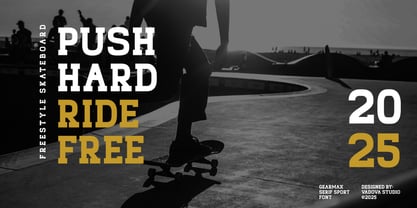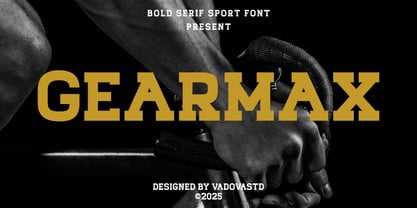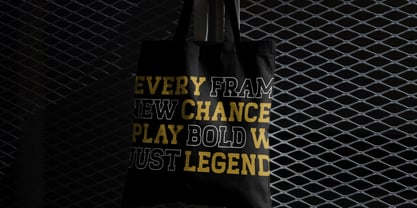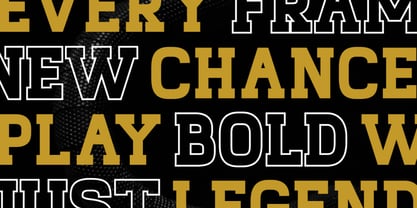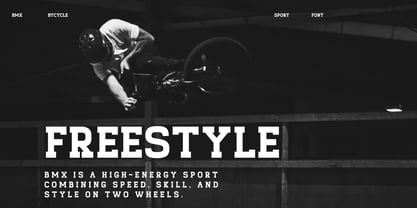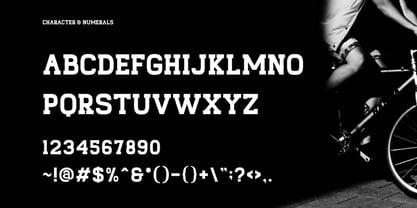
Gearmax
by Vadova Std
The Gearmax Font Family was designed by and published by Vadova Std. Gearmax contains 1 styles. More about this family
Elevate your designs with Hendritage, a modern font perfect for adding elegance and style to your projects. This font offers key features like OpenType format compatibility, uppercase and lowercase characters, plus numerals and punctuation, perfect for versatile and professional designs. Whether it’s for quotes, logotypes, magazine headers or more.